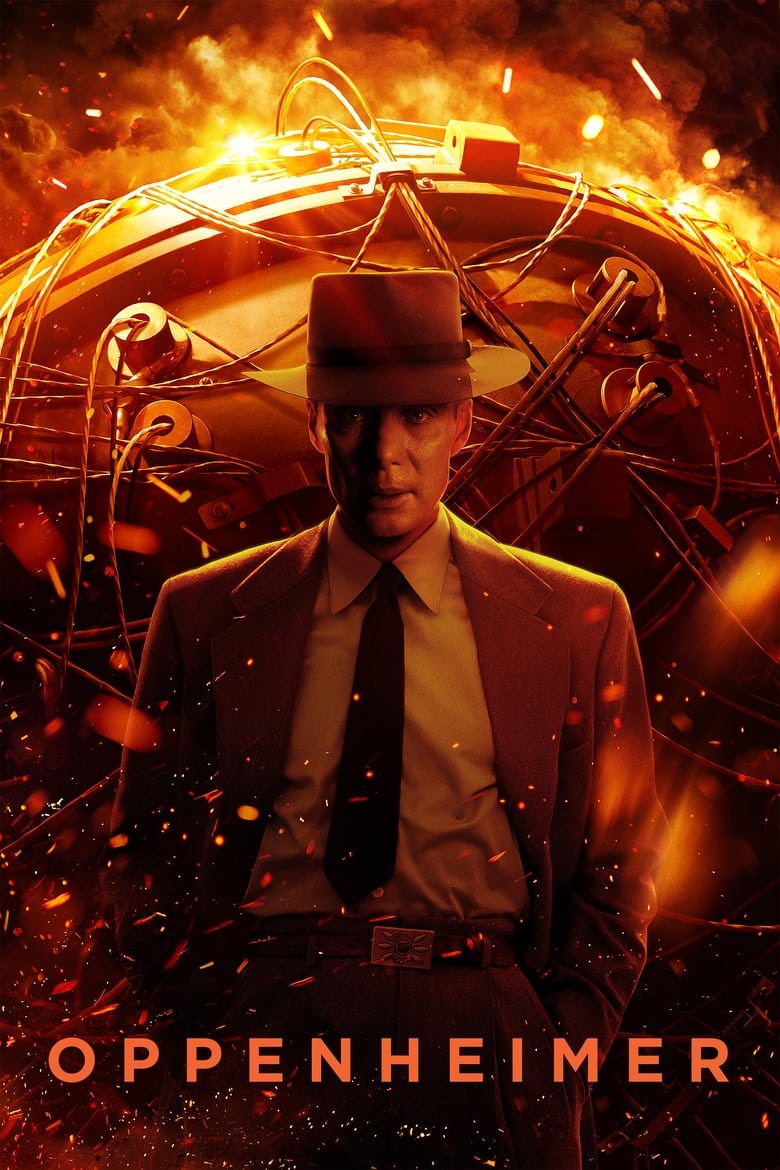
About the Oppenheimer font
Oppenheimer uses a stark, condensed all-caps sans. Oswald — a free condensed gothic — mirrors that austere, documentary-poster tension.
What font is used in the Oppenheimer logo?+
The original Oppenheimer logo uses custom lettering. This generator recreates the look with Oswald — a free, open-license font you can style and download.